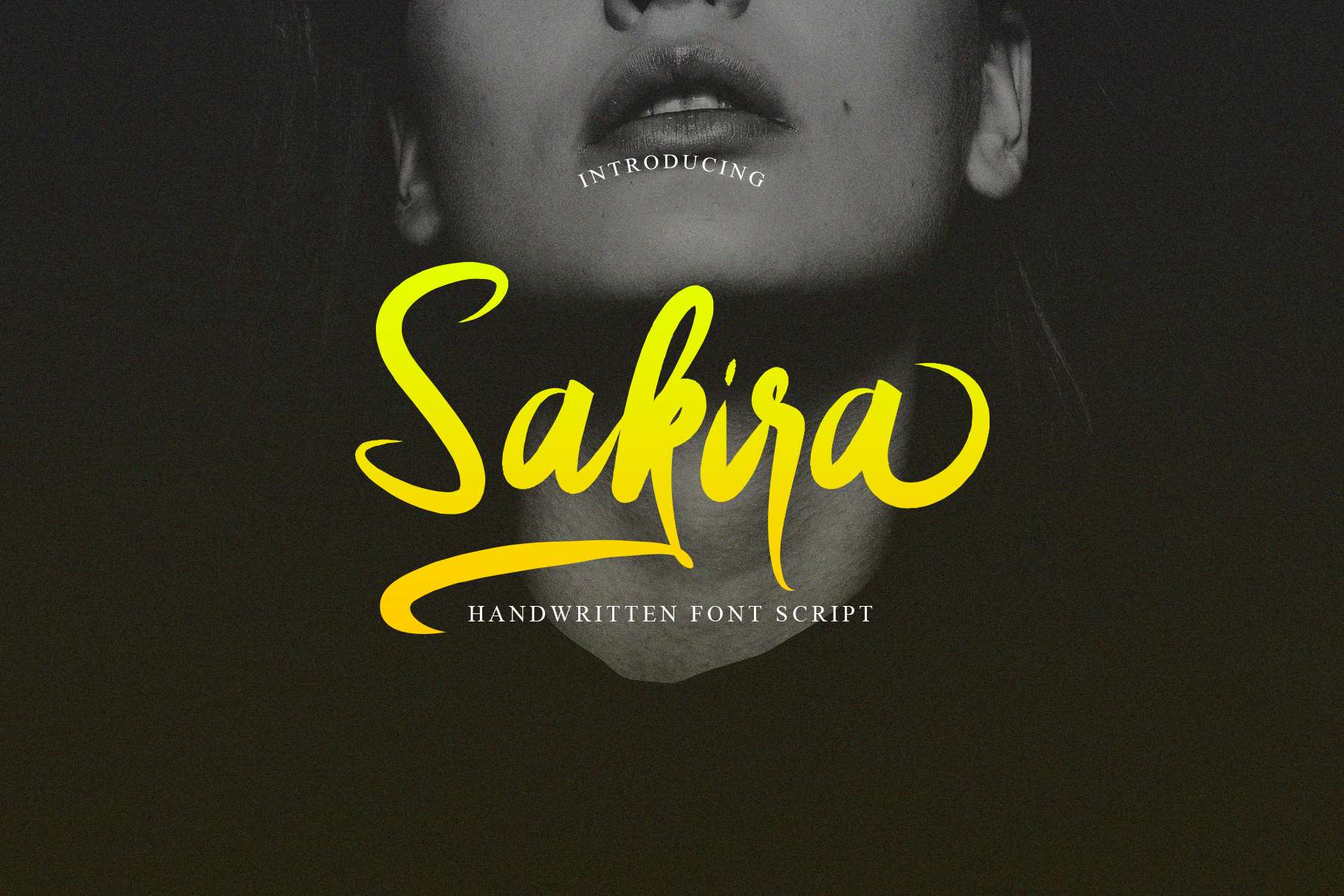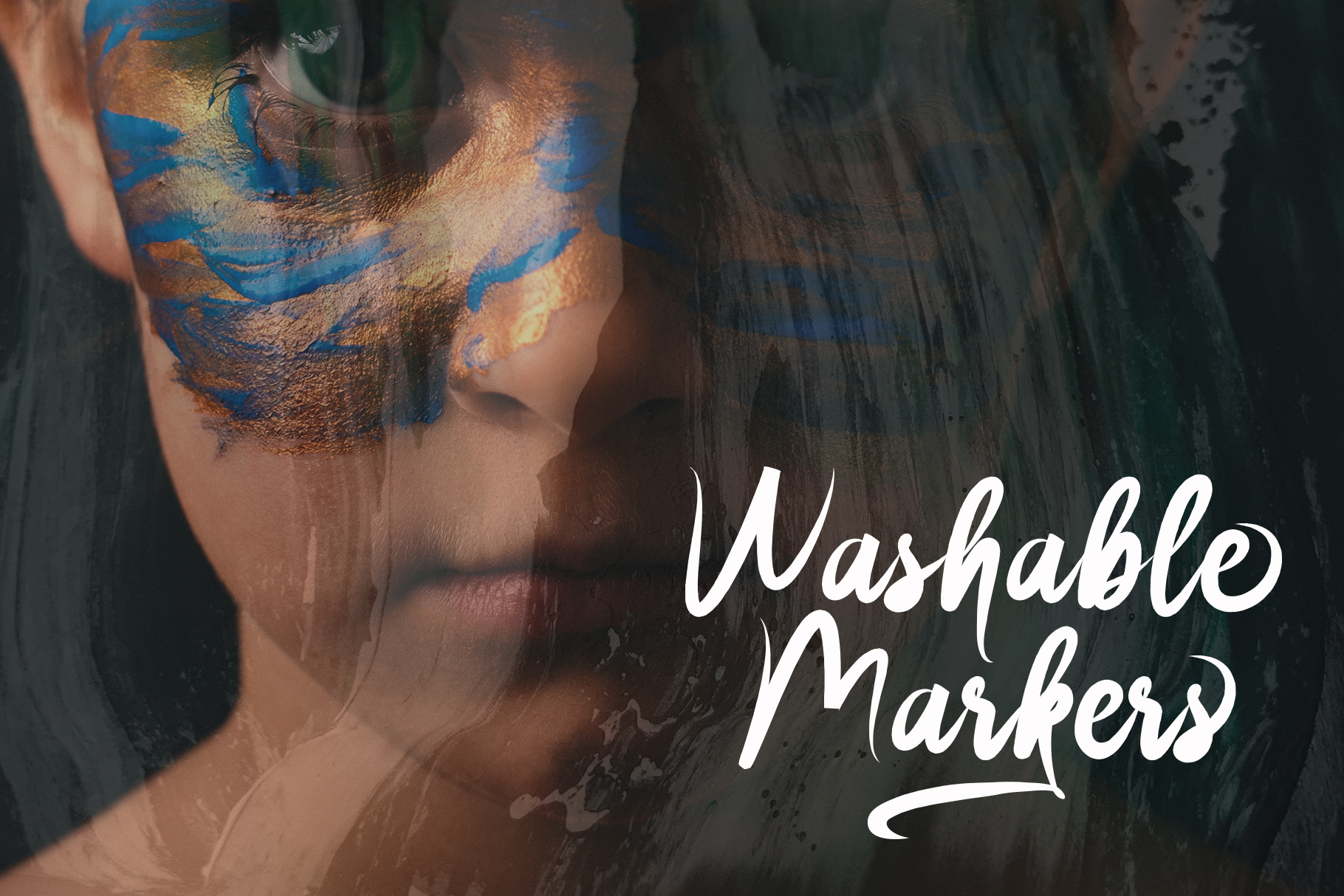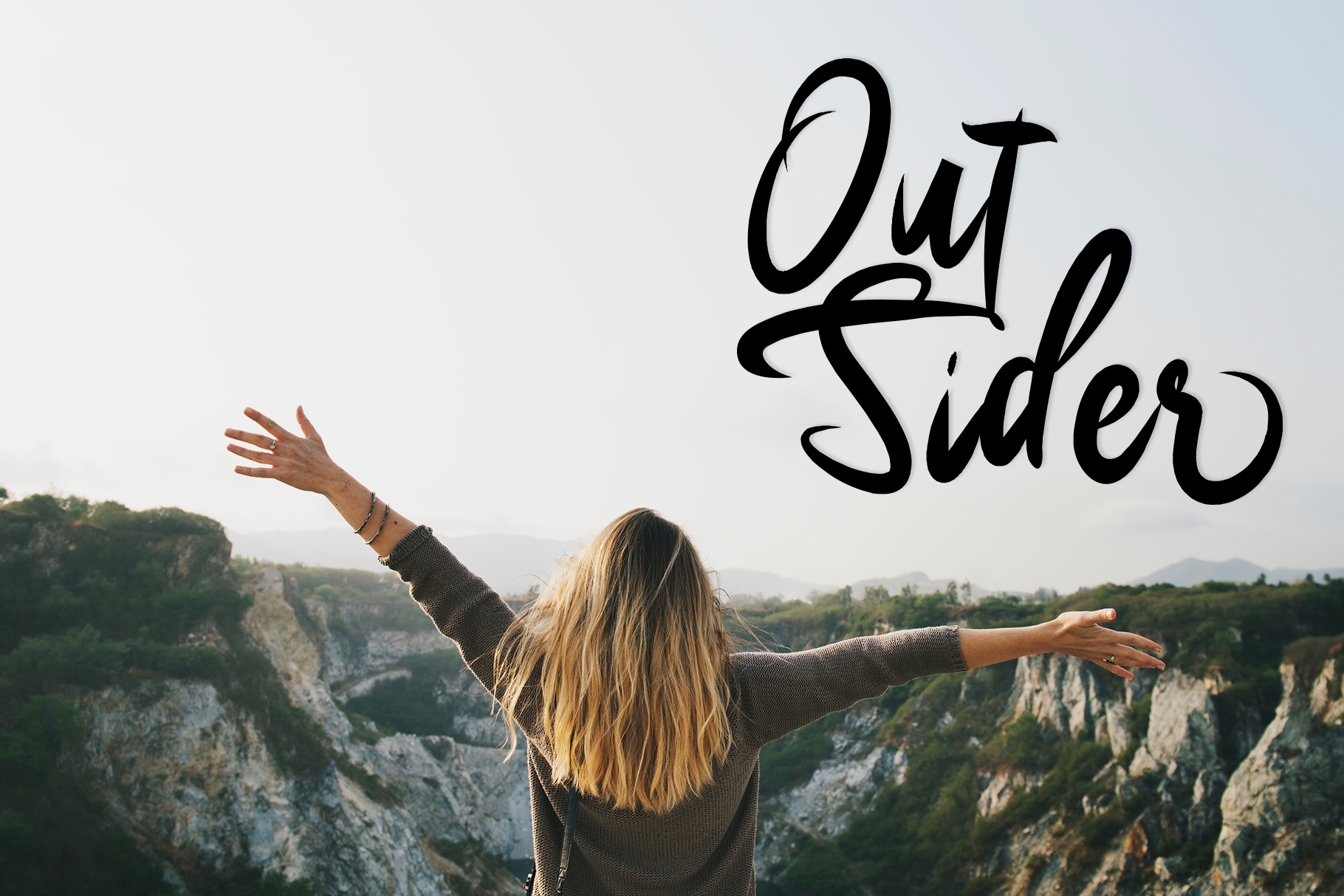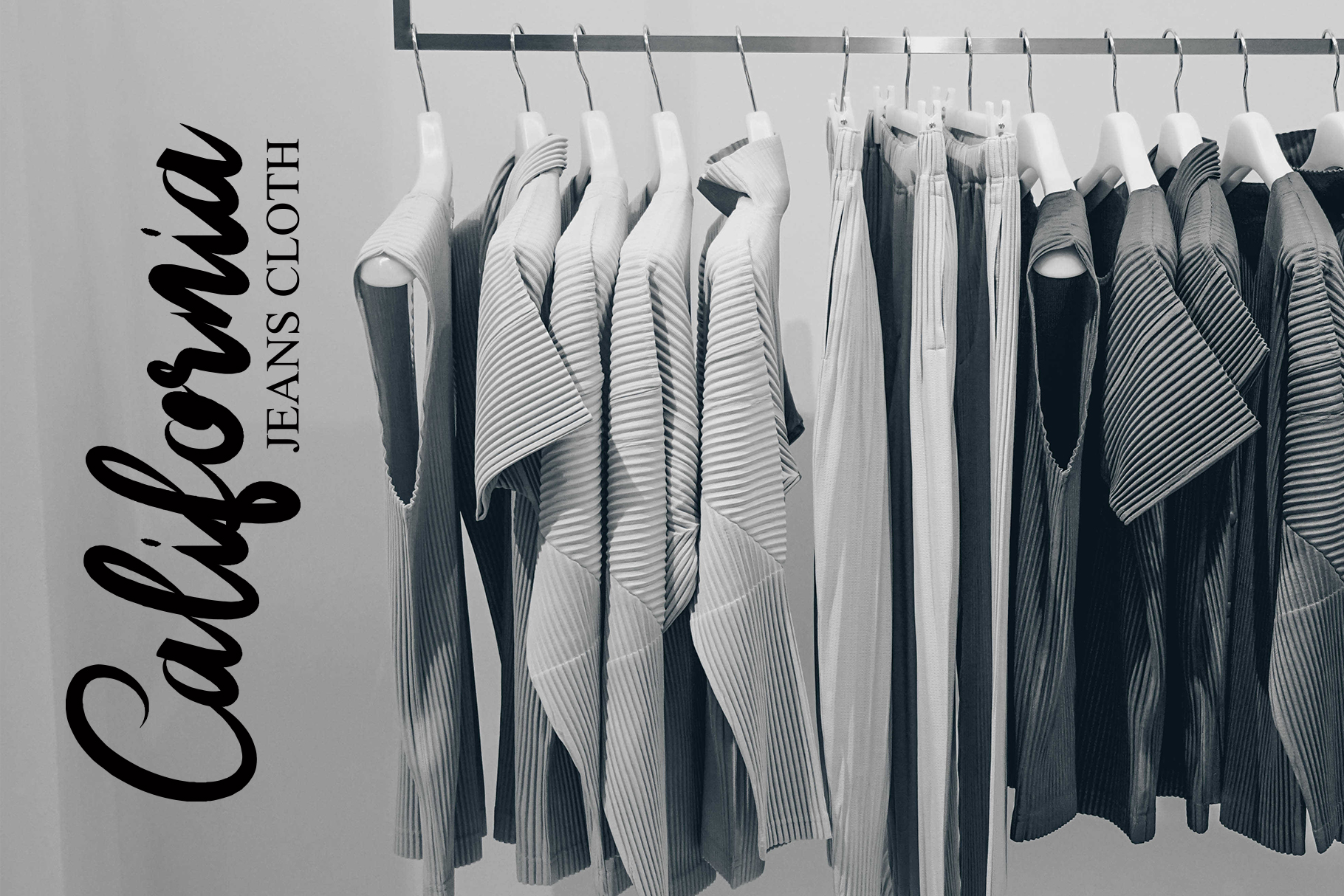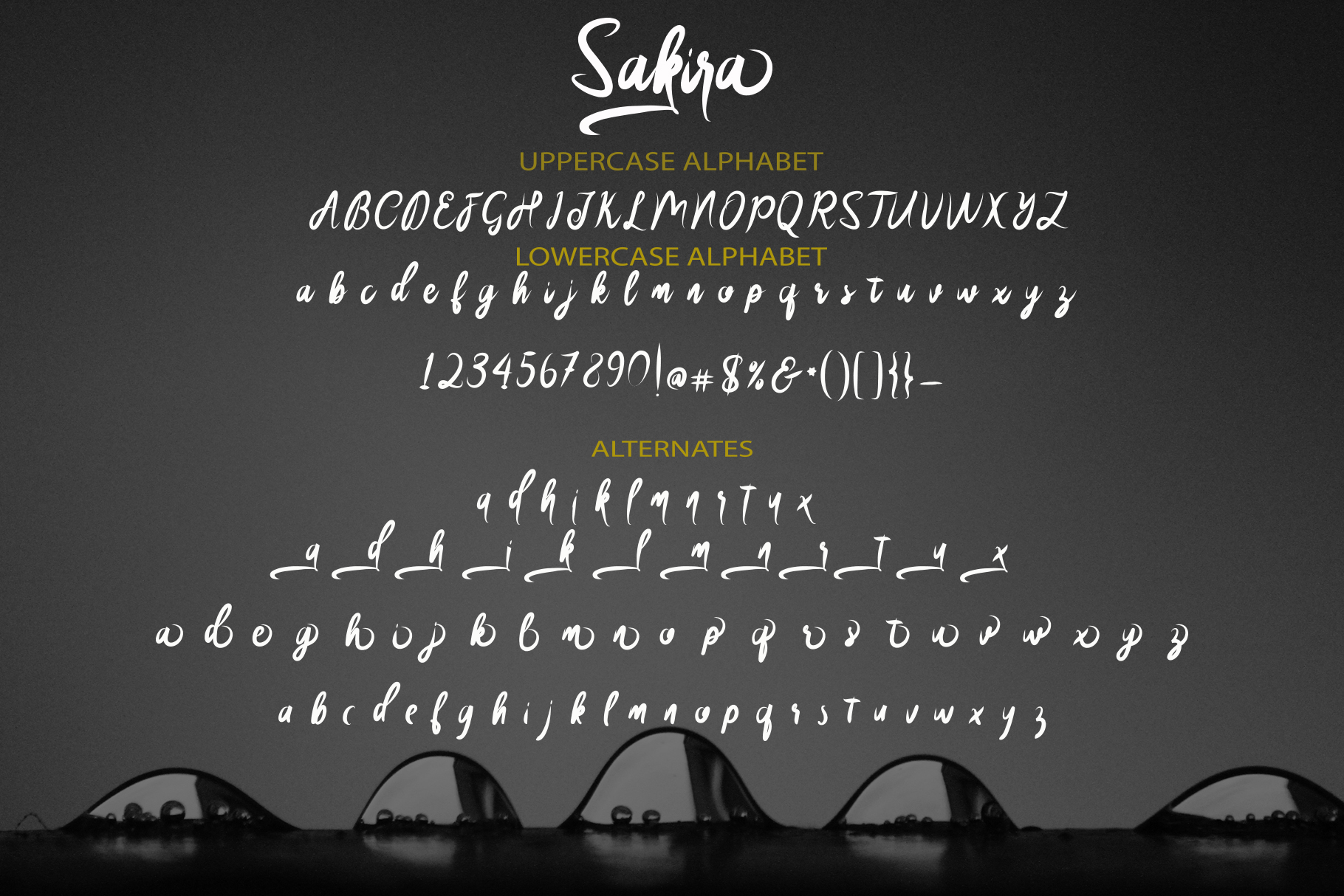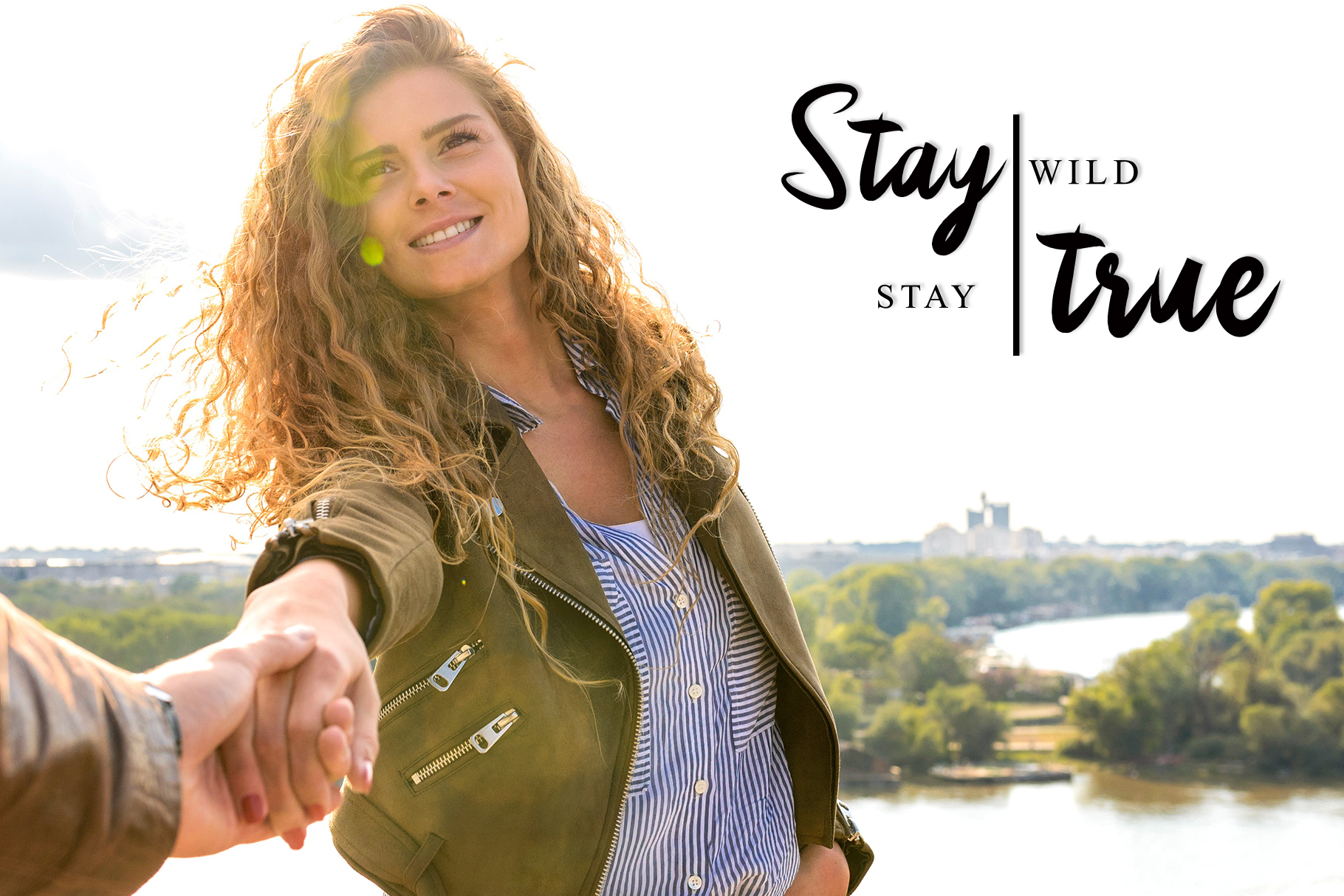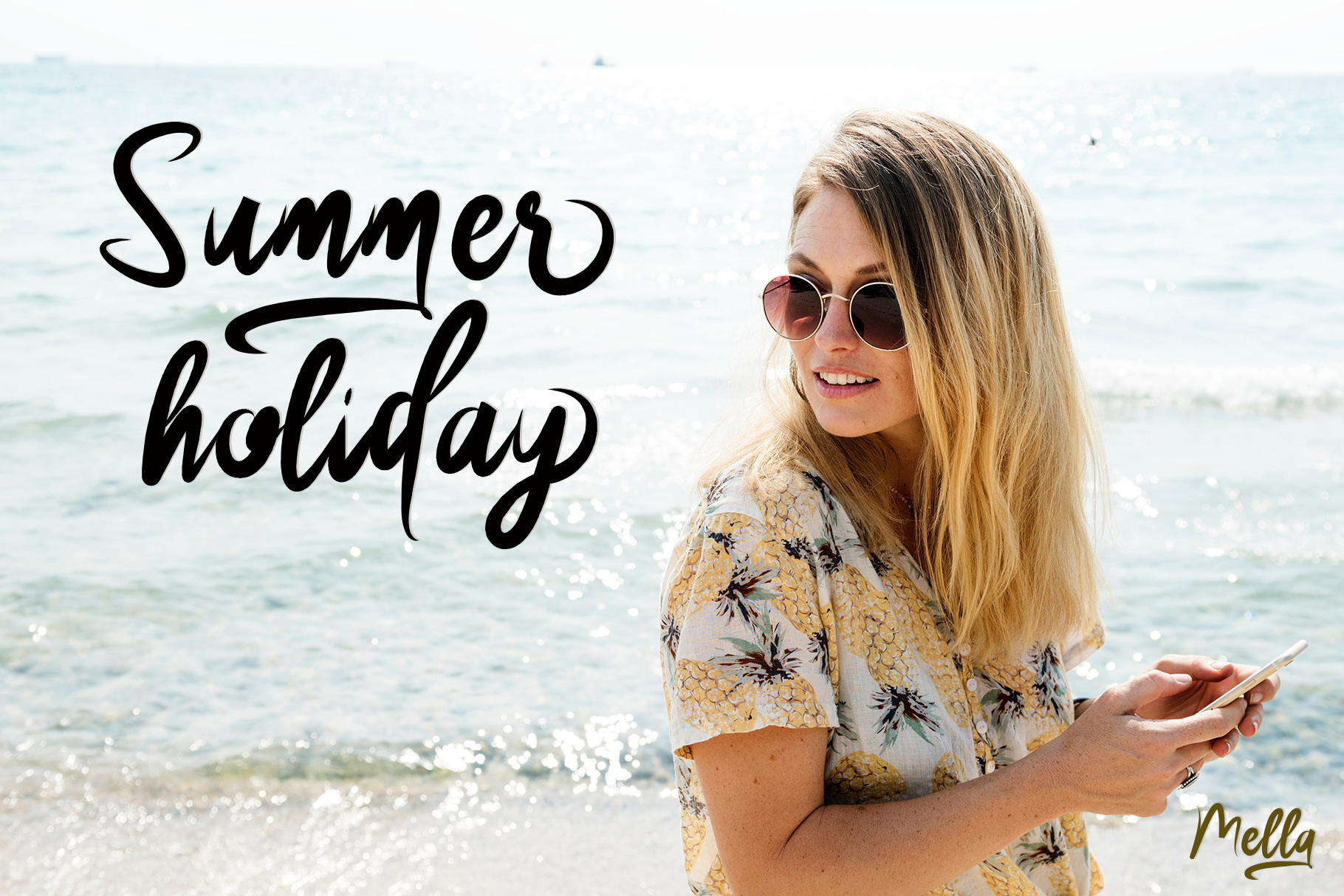
Sakira Script Font
About Sakira Script Font
Sakira Script is a gorgeous modern script font with a brush stroke look. This calligraphy font is decorative and dances, and looks beautiful on invitationals and headlines.